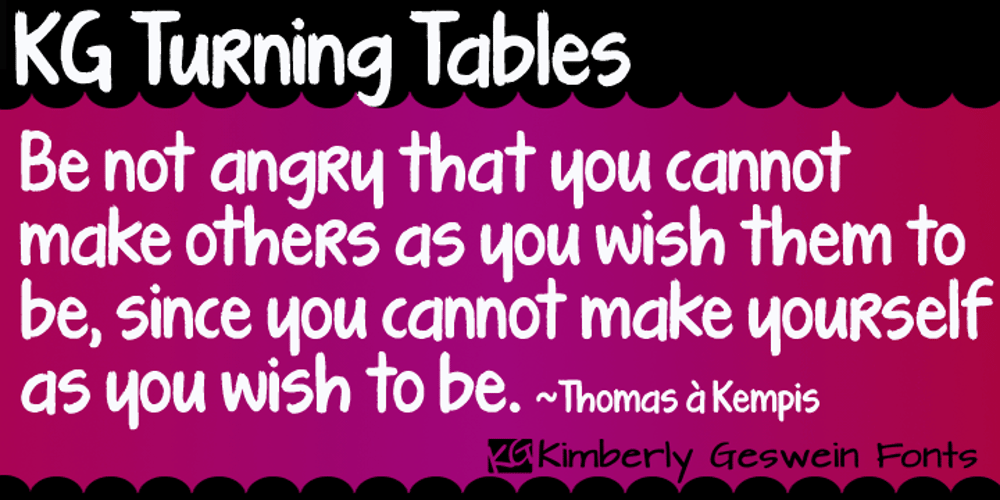
KG Turning Tables Font Family was designed by Kimberly Geswein and published by Kimberly Geswein. KG Turning Tables contains 1 styles and family package options. A neater version of my font Complete in Him, a hand-drawn marker font. Hand drawn with a brush marker, this font is neat but still has enough twists to make it fun. Perfect for painted or brushed looks.